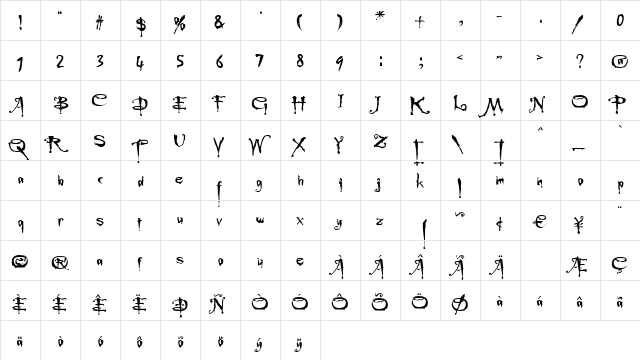
Rebuffed Regular
Design Context for Rebuffed Typeface
Rebuffed is a composed and adaptable typeface that performs quietly and consistently across a wide range of design contexts.